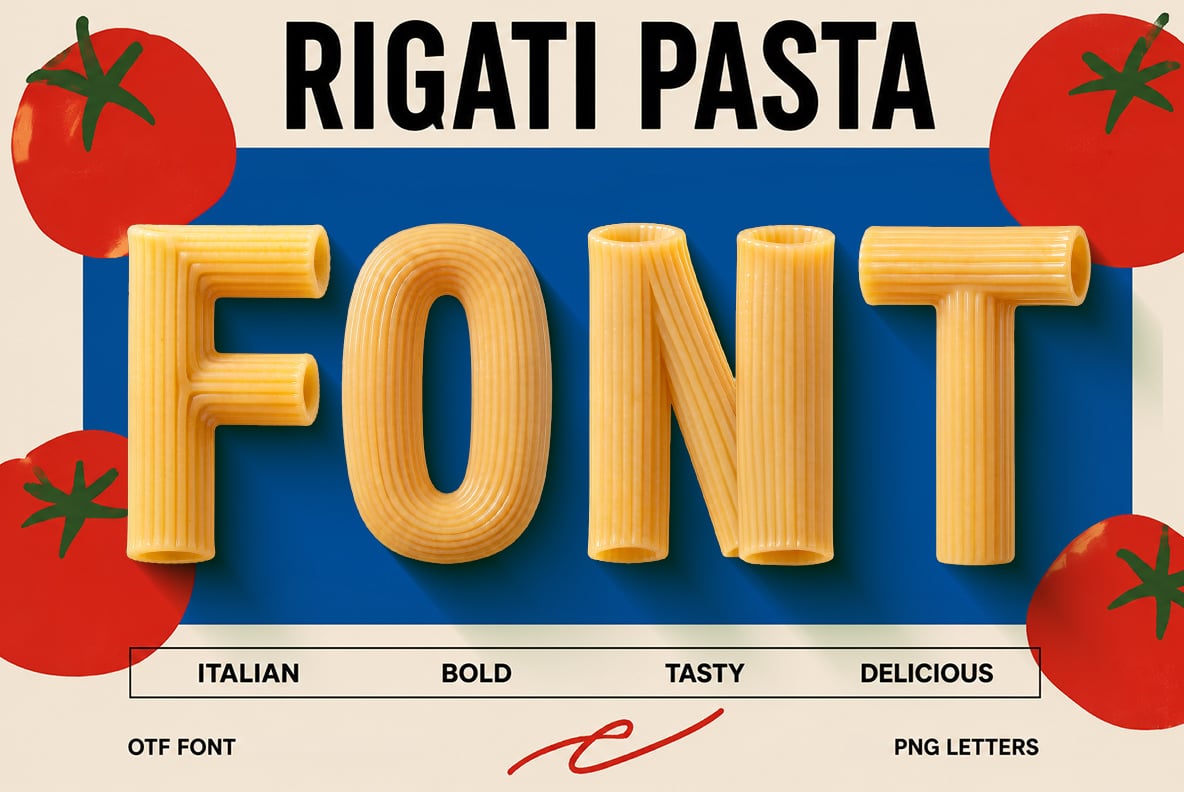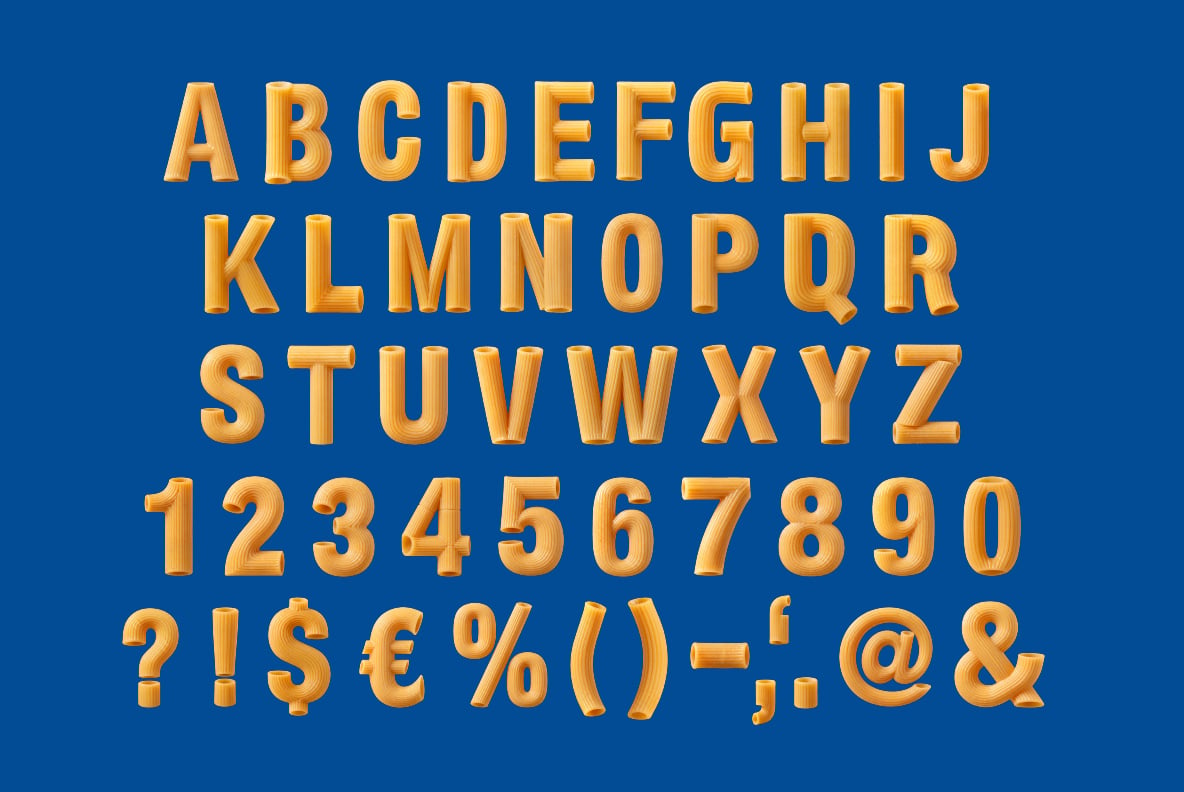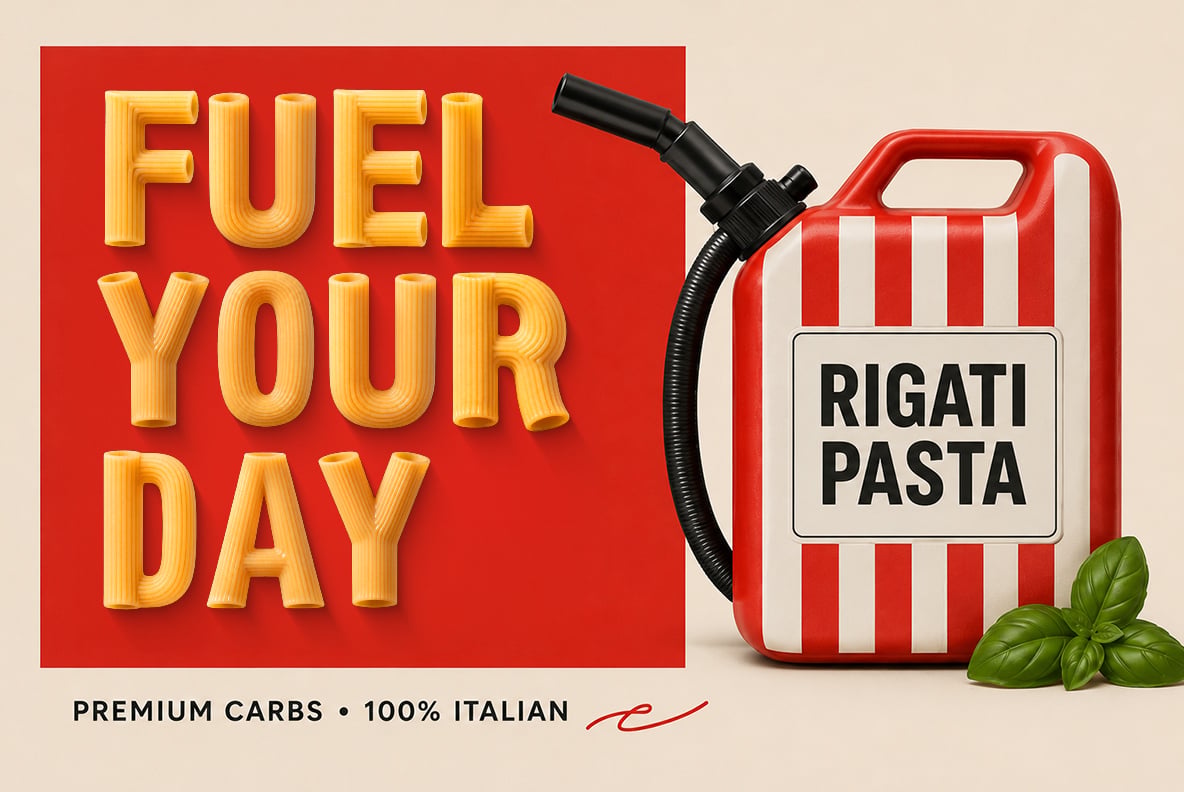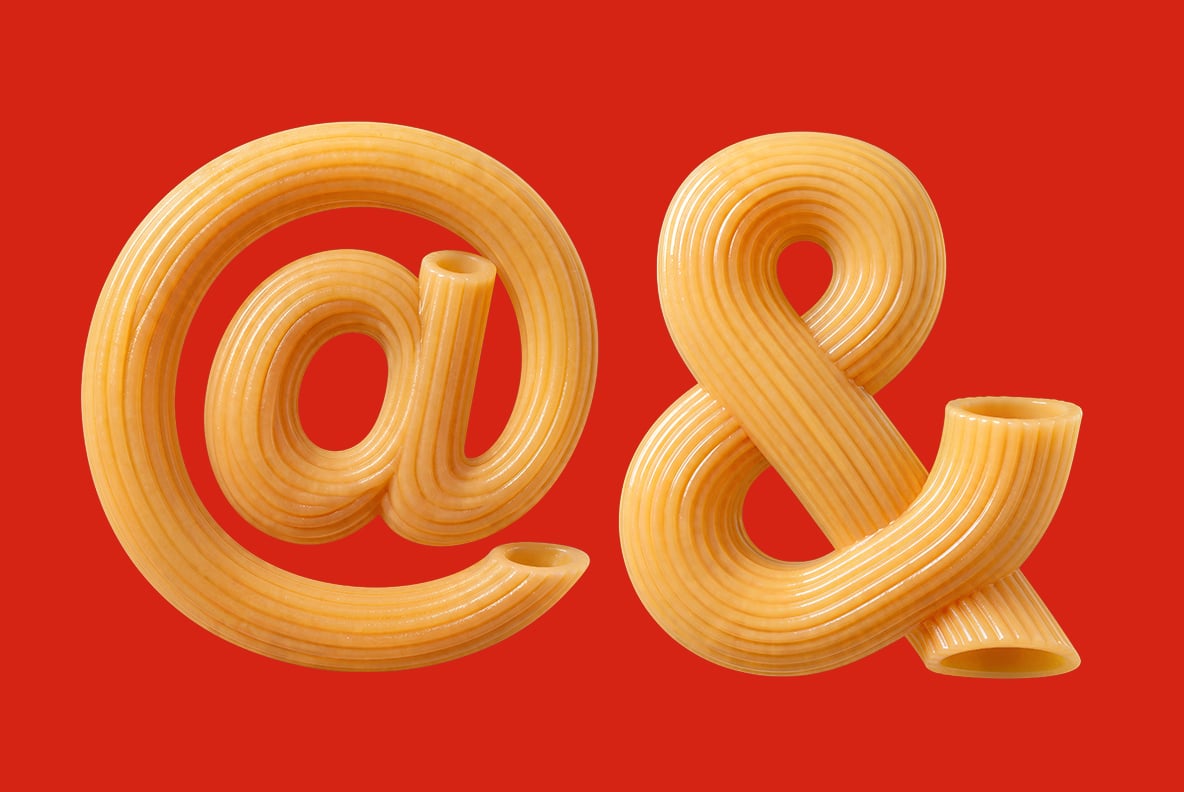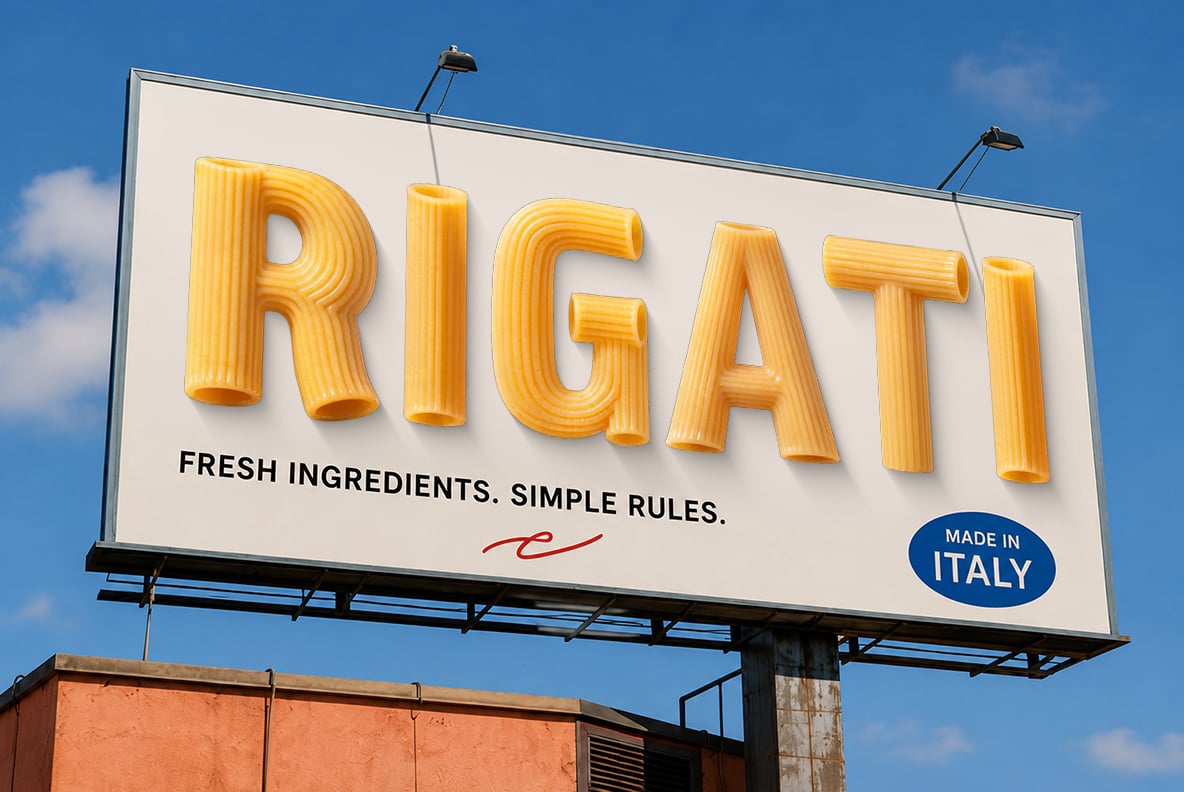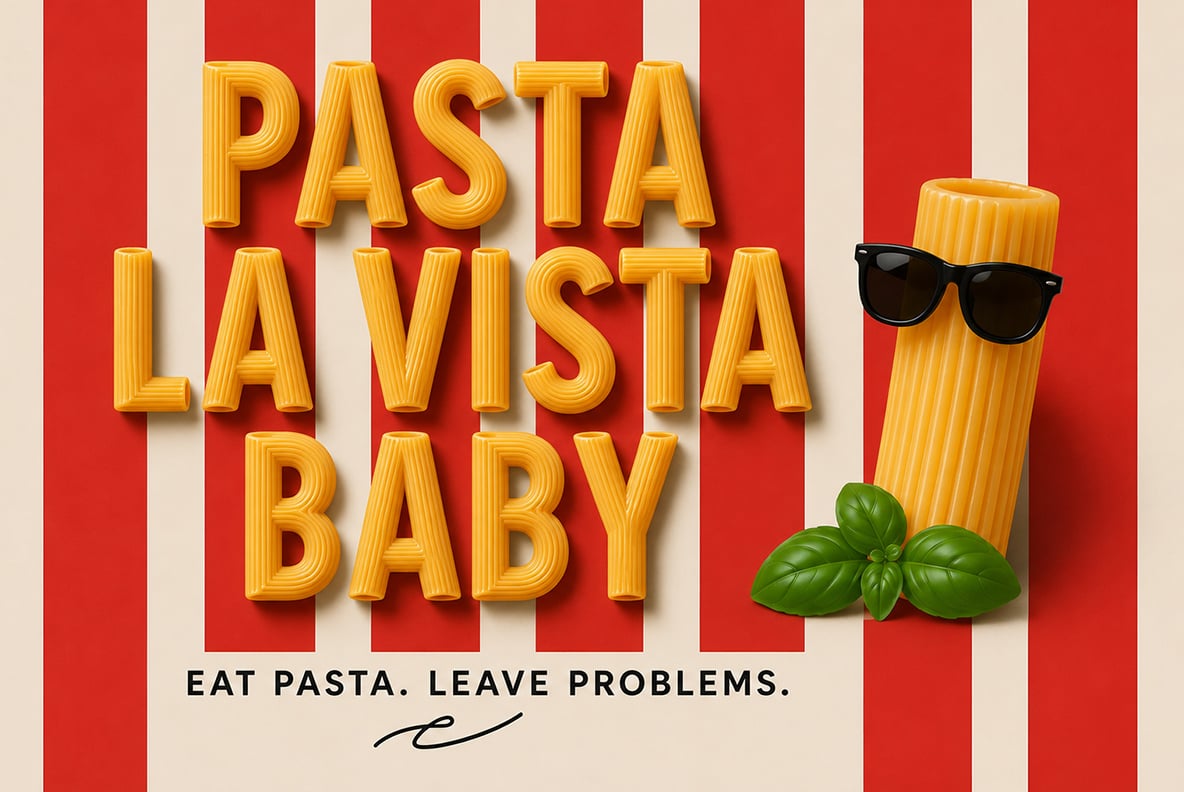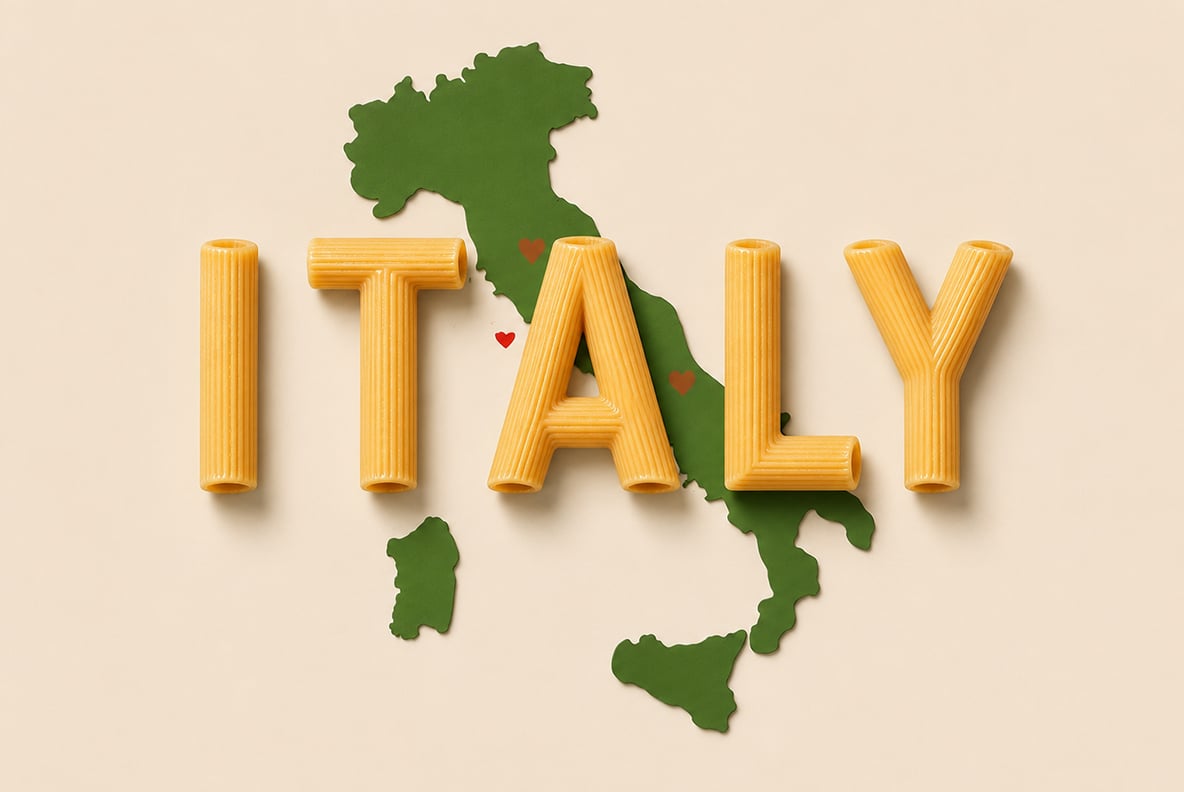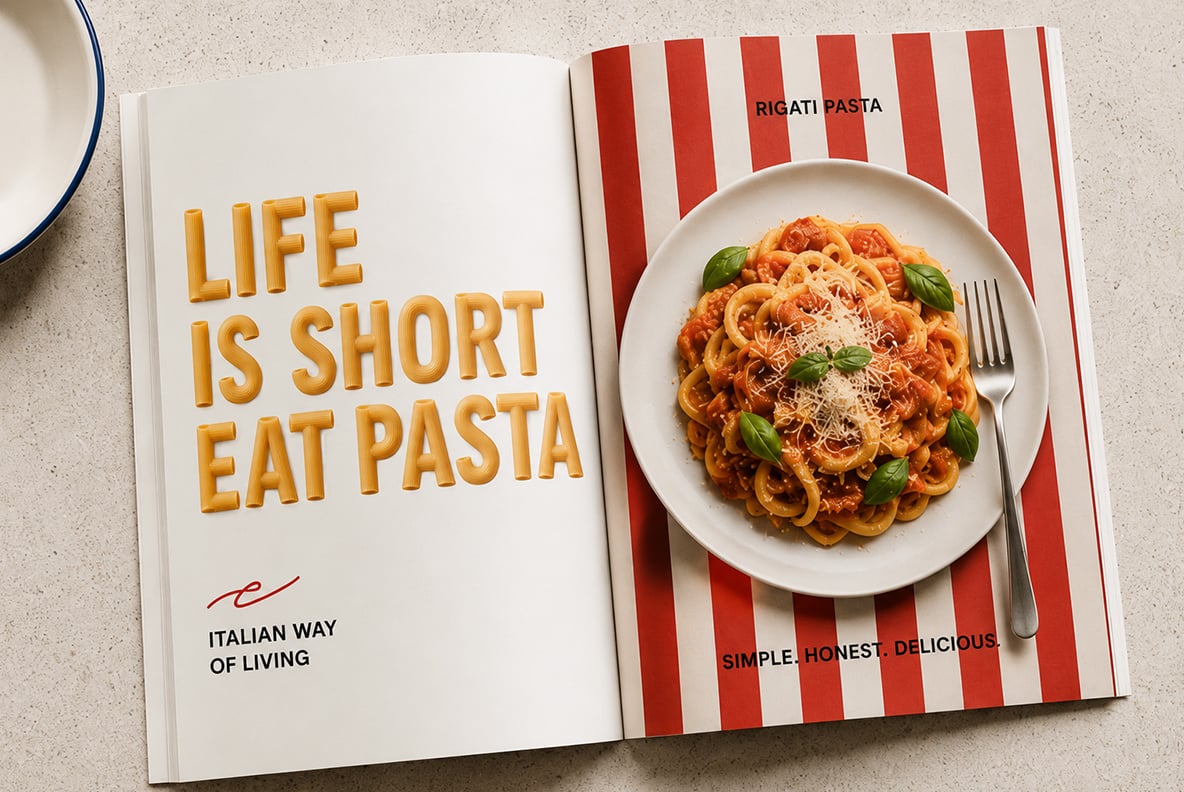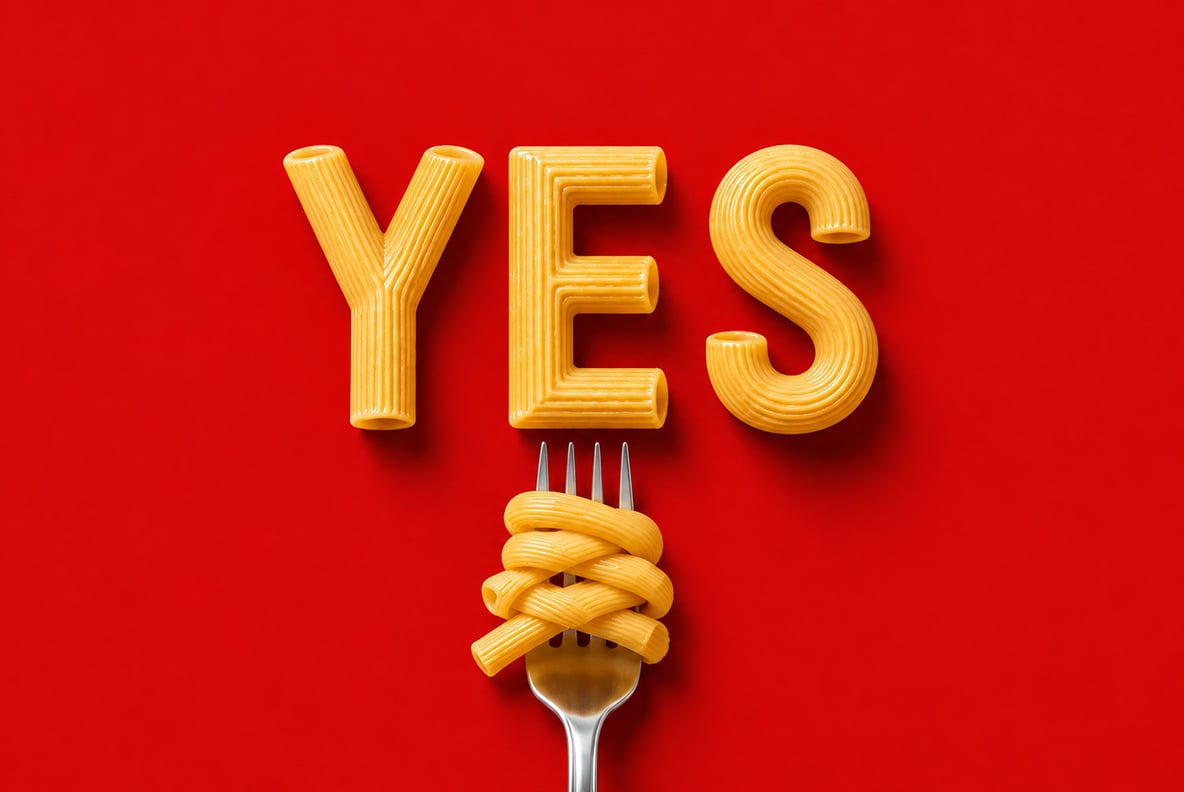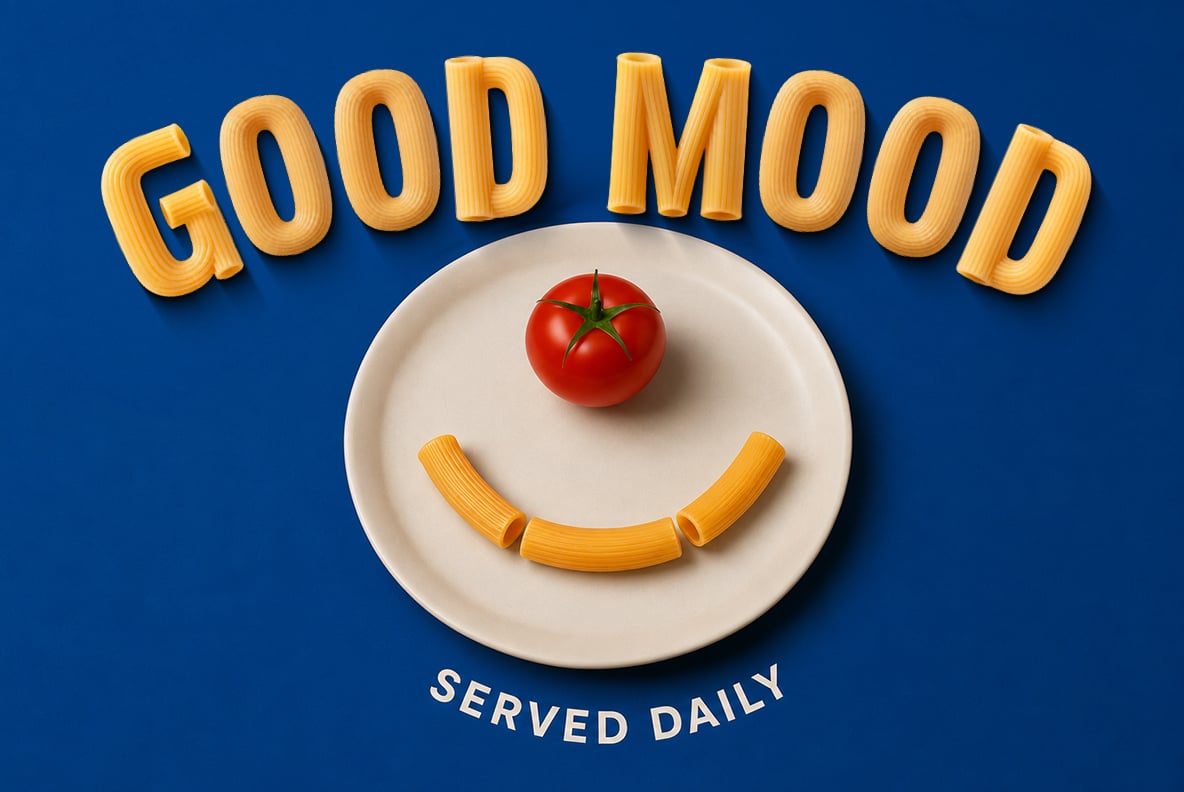
Rigati Pasta Font
Rigati Pasta Font brings the warmth and charm of authentic Italian cuisine into your typography. Crafted from realistic rigati pasta shapes, every character features rich texture and delicious detail, making your designs instantly eye-catching and memorable. Perfect for restaurant branding, food packaging, menus, posters, social media, logos, and playful editorial projects, this typeface adds a unique handcrafted personality to every composition. The package includes a high-quality OTF font for easy typing, plus individual PNG letters with transparent backgrounds, giving you complete creative freedom for custom layouts, compositions, and eye-catching visual designs. Fresh, bold, flavorful, and irresistibly fun, Rigati Pasta Font is made to satisfy every creative appetite.